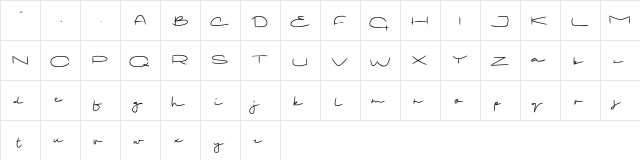
Battaisi Regular
Design Context for Battaisi Typeface
Battaisi is a composed and adaptable typeface that performs quietly and consistently across a wide range of design contexts.